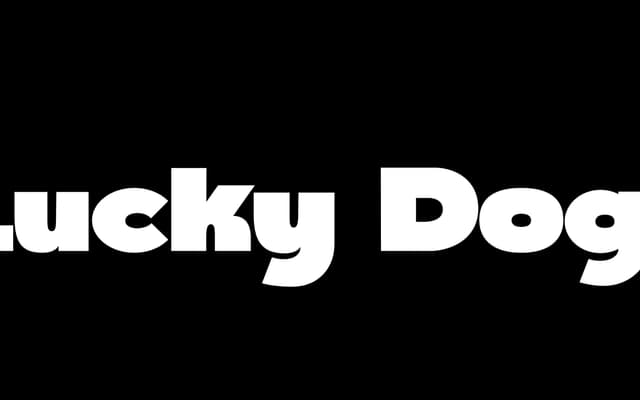
Lucky Dog
A blocky, rounded display sans with medium contrast and a curvy, approachable character, sold as a single style.
Lucky Dog is a display sans built around blocky forms softened by curved details, giving it a bold presence that reads as playful rather than aggressive. Medium contrast runs through the letterforms, adding a little structure without tipping into formality. Both upper and lowercase are included, broadening its use across headlines, logos and packaging where a friendly, confident voice is needed.
Described explicitly as a display type with blocky, curvy forms and medium contrast; the rounded, playful character shapes place it firmly in the display sans category rather than a functional text grotesque.